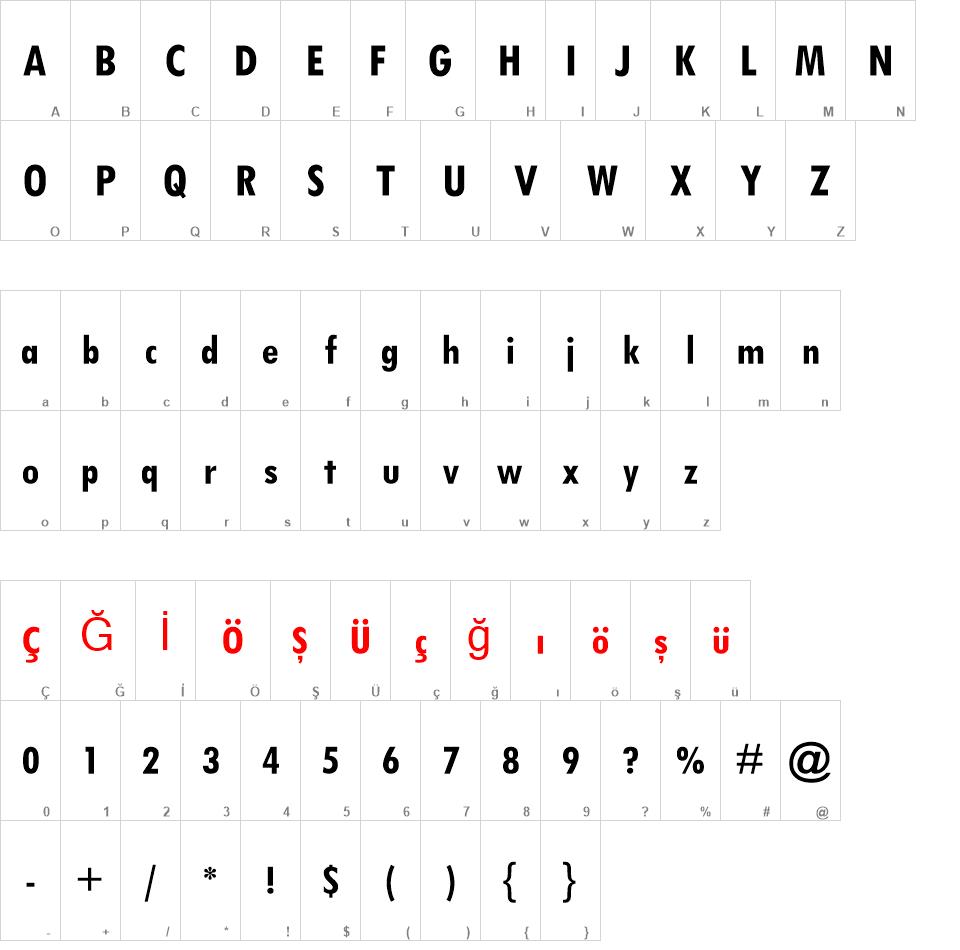
This Is A Structural Typeface That Was Firstly Released In The 1920S.
20th century was designed and drawn by sol hess in the lanston monotype drawing office between 1936 and 1947. This font is based on geometric shapes that were started in the early 1920s in germany. The first weights were added to the monotype typeface library in 1959.
This Is A Face Based On Geometric Shapes Which Originated In Germany In The Early 1920'S And Became An Integral Part Of The Bauhaus Movement Of That Time.
Lots Of Improvements Have Been Made After Its Initial Release.